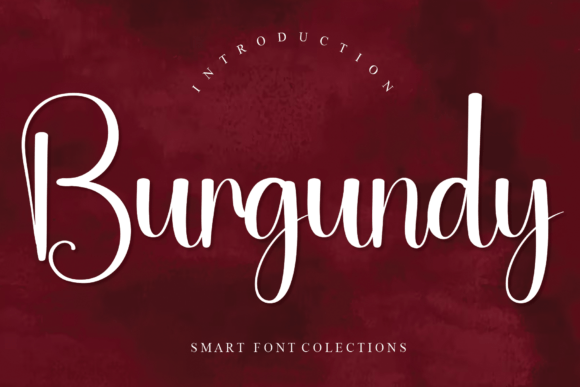
Embrace the captivating charm of Burgundy Font, a whimsical script font that echoes the joy and warmth of Christmas stockings. Step into a world of merriments as this font dances across your designs, spreading festive cheer with every letter.
Crafted with meticulous care by William Jhody, Burgundy Font embodies the essence of the holiday season. Its sweet and friendly demeanor shines through in each stroke, inviting you to create designs that beam with warmth.
Imagine your wedding invitations adorned with Burgundy Font's enchanting curves, eloquently conveying the love and happiness of your special day. Picture holiday cards that come alive with Burgundy Font's playful spirit, carrying messages of joy and goodwill.
Whether you're designing social media posts, flyers, or any other creative project, Burgundy Font is your trusted companion. Its versatility knows no bounds, effortlessly adapting to a range of styles and themes.
Indulge in the magic of Burgundy Font and elevate your designs to new heights. Let its charm ignite your creativity and spread holiday cheer wherever your designs may go. Seize the opportunity to make your designs truly unforgettable with Burgundy Font.